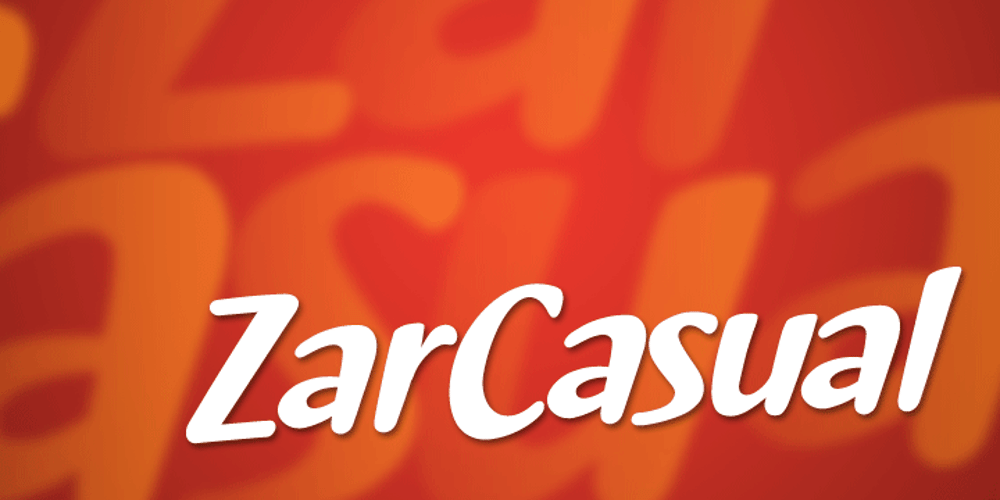
Zar Casual Font Family was designed by Randy Szarzynski and published by SzarDesign. Zar Casual contains 1 styles and family package options. ZarCasaul has a soft side with a bouncy attitude. Informal font works for taglines to logos, inspired by my background in showcard lettering.